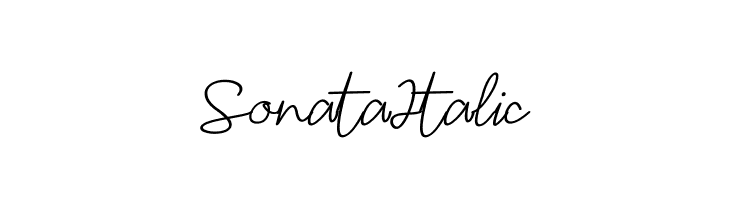
A dynamic and elegant script font with flowing, cursive letterforms.
A cursive, handwritten-style font with elegant, flowing strokes.
A fluid and elegant handwritten font with smooth, continuous strokes.